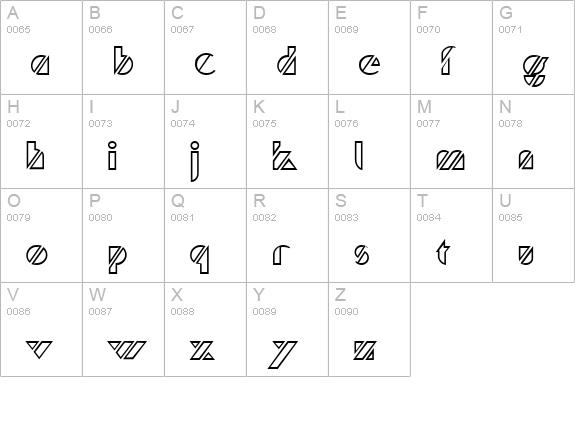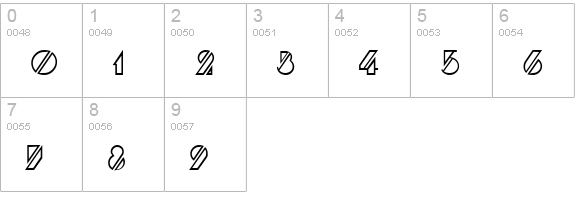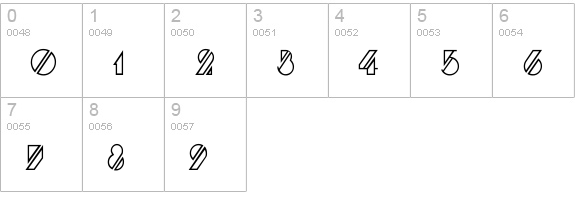
Maxwell Font Details
Maxwell font is a beautifully crafted typeface that embodies elegance and sophistication. With its sleek lines and modern appeal, Maxwell is perfect for adding a touch of class to any design project. Whether you're working on invitations, branding materials, or editorial layouts, this versatile font will elevate your work to new heights. One of the best features of Maxwell font is that it is completely free to download. You can easily access this stunning typeface at FontsMarket.com, where you can explore a wide range of styles and weights to suit your creative needs. Don't miss out on this amazing opportunity to enhance your designs with the timeless beauty of Maxwell font. Download it now and let your creativity shine!